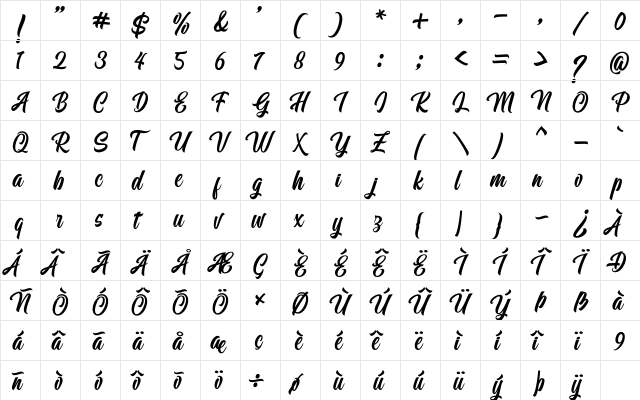
Mueband Regular
Design Context for Mueband Typeface
Mueband is a composed and adaptable typeface that performs quietly and consistently across a wide range of design contexts.
Pro Tip: Pair Mueband with a font of contrasting weight or personality to build a more expressive typographic hierarchy.